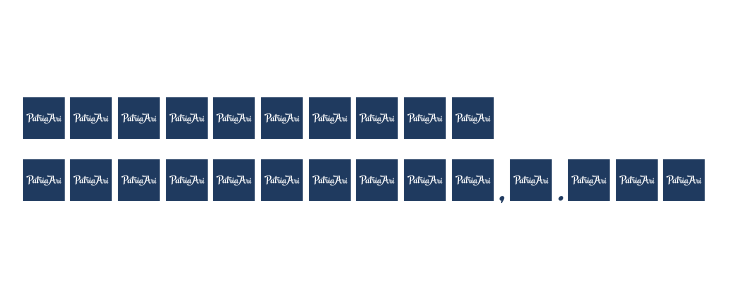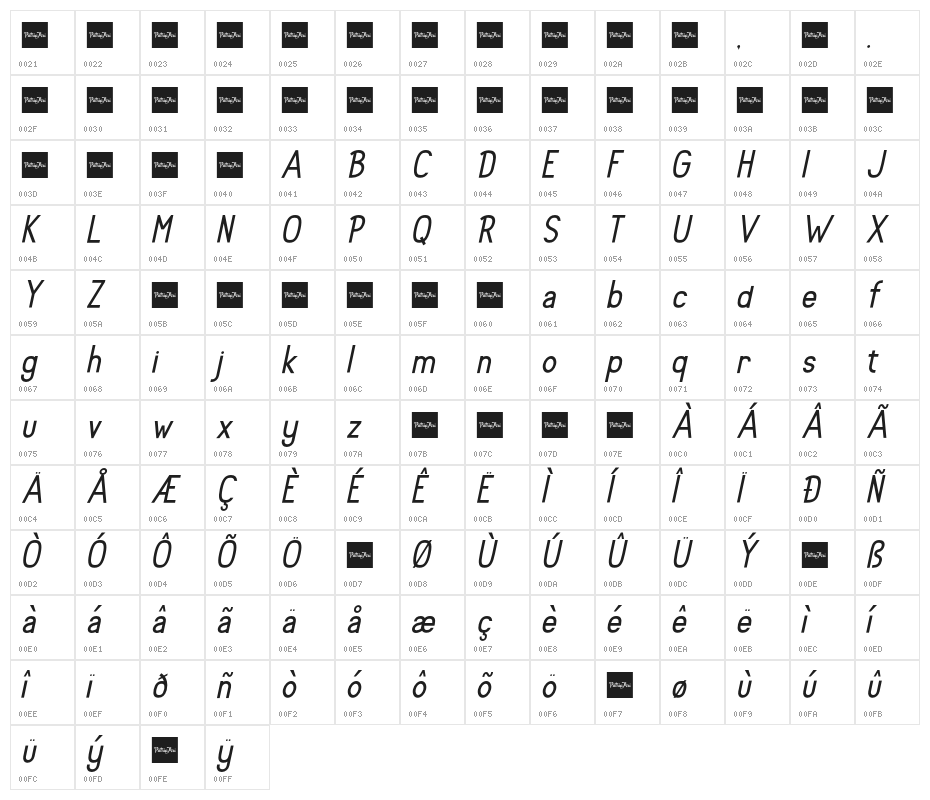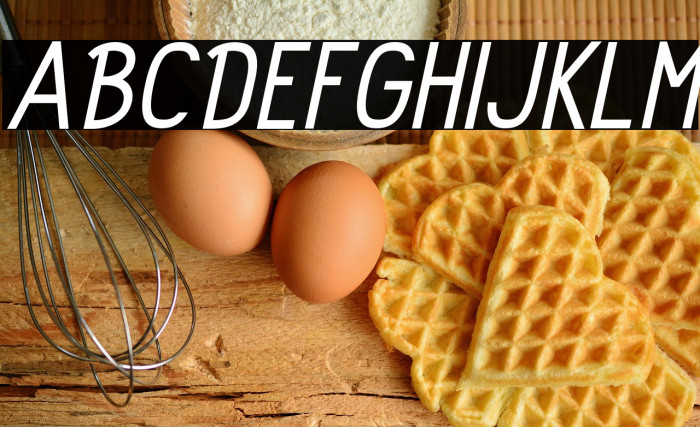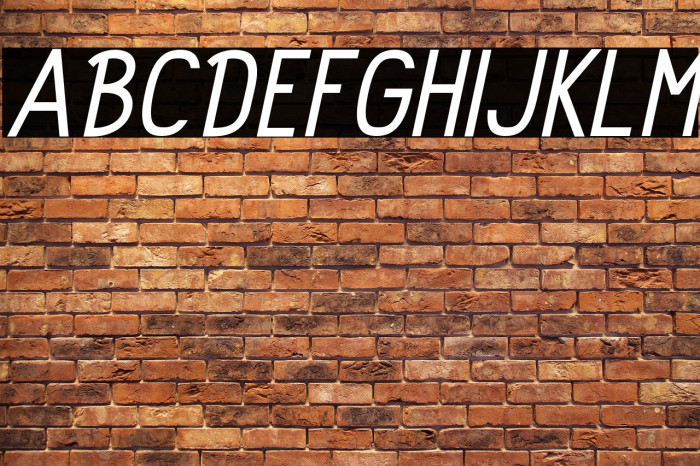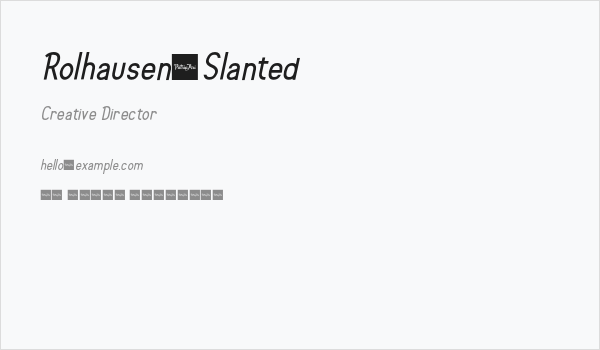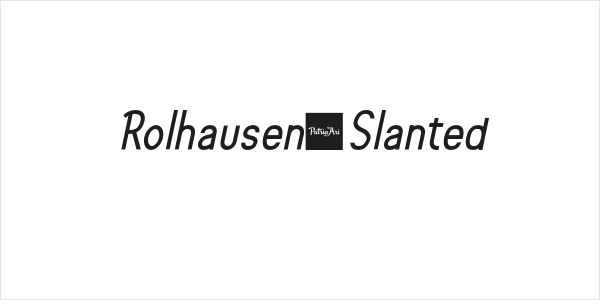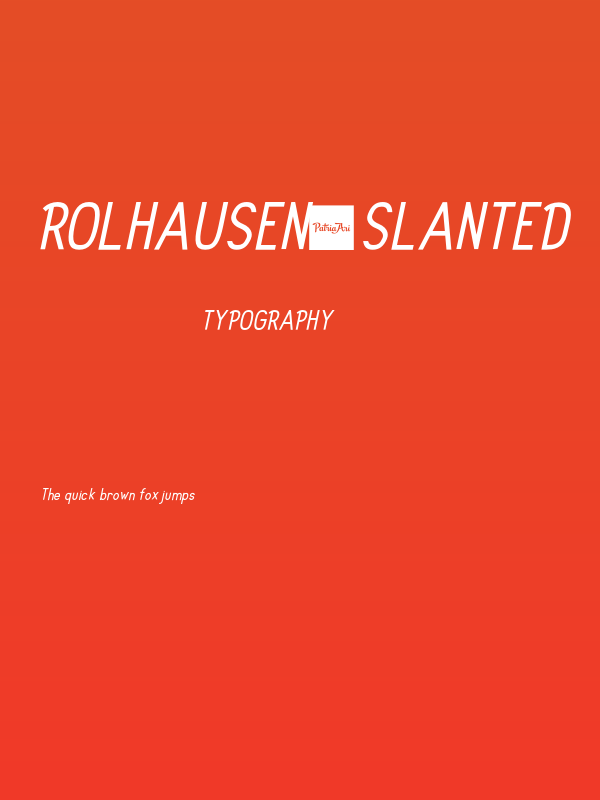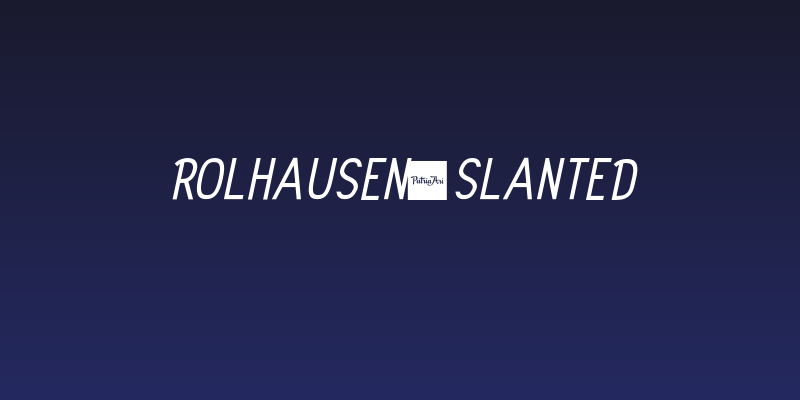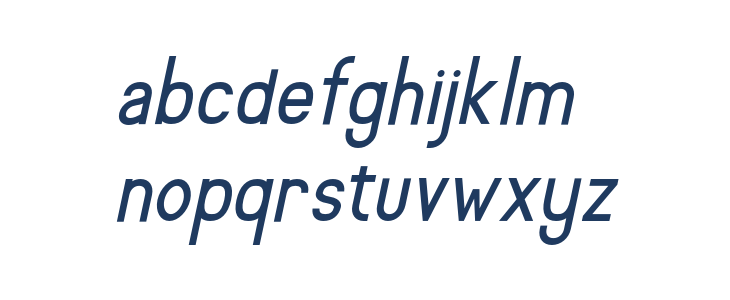
Rolhausen-Slanted Font
Rolhausen-Slanted Description
This font features a modern, slanted design that exudes a sense of forward momentum and dynamism. The characters are slightly italicized, giving them a sleek and contemporary appearance. The uppercase letters are tall and narrow, while the lowercase letters maintain a consistent flow with smooth curves and clean lines. The numbers are well-proportioned, matching the overall aesthetic of the alphabet. Special characters are included, maintaining the same stylistic integrity. This font is versatile, suitable for a range of applications where a modern and professional look is desired.
| Proposed Projects | Ideal for branding, advertising, and editorial design projects that require a modern touch. |